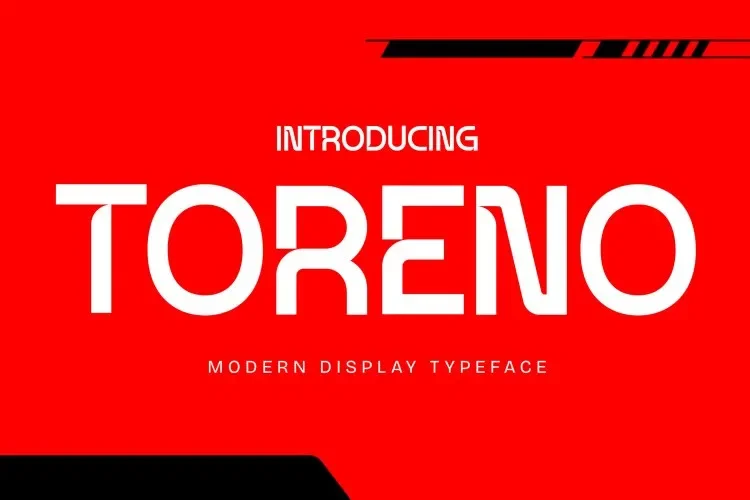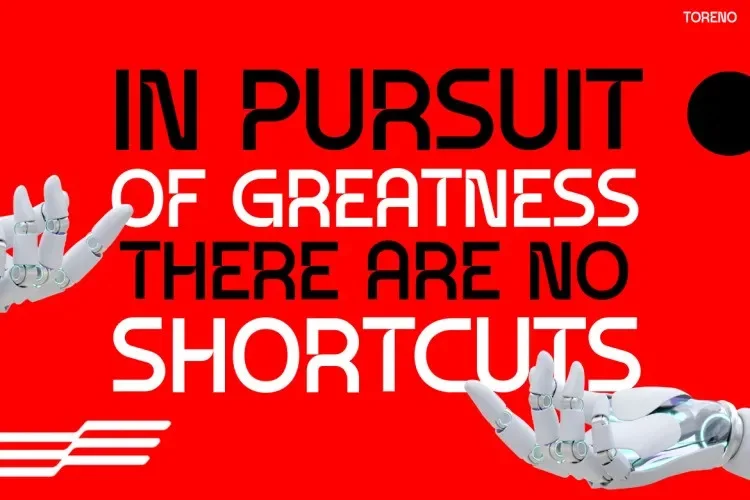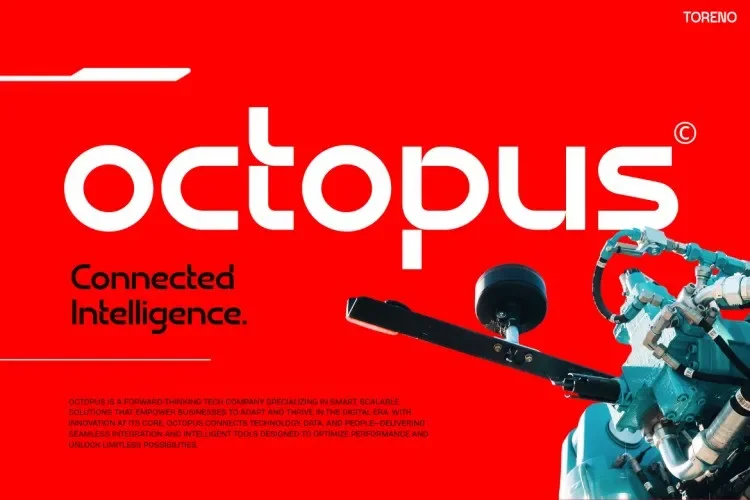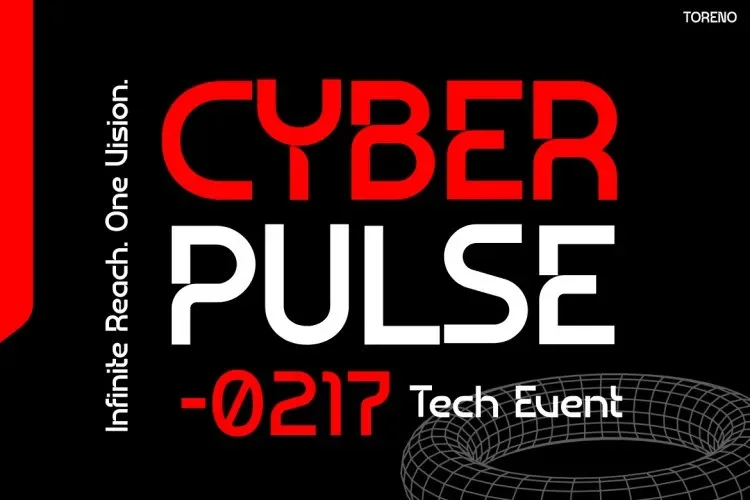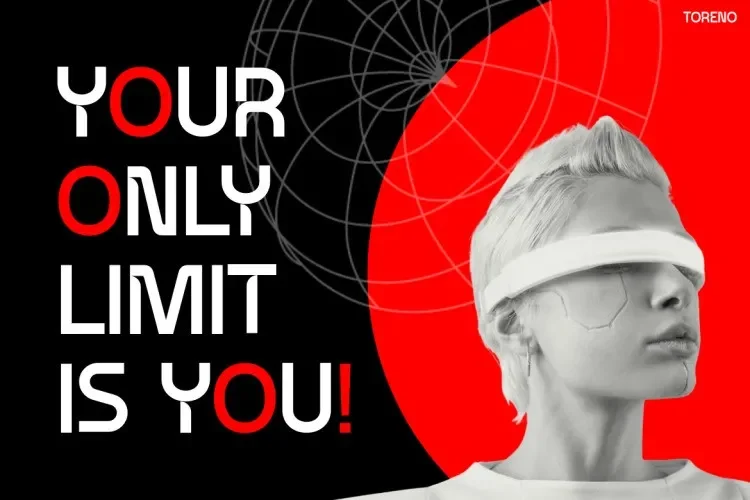
Toreno Font is a bold display typeface designed for impactful headings, branding, and social media graphics. Its strong strokes improve legibility while creating a professional visual presence.
The font features thick, consistent strokes, clean terminals, and well-spaced letterforms. Its design supports multiple weights and stylistic alternates, allowing flexibility in print and digital layouts. Toreno provides a modern yet assertive impression suitable for contemporary branding.